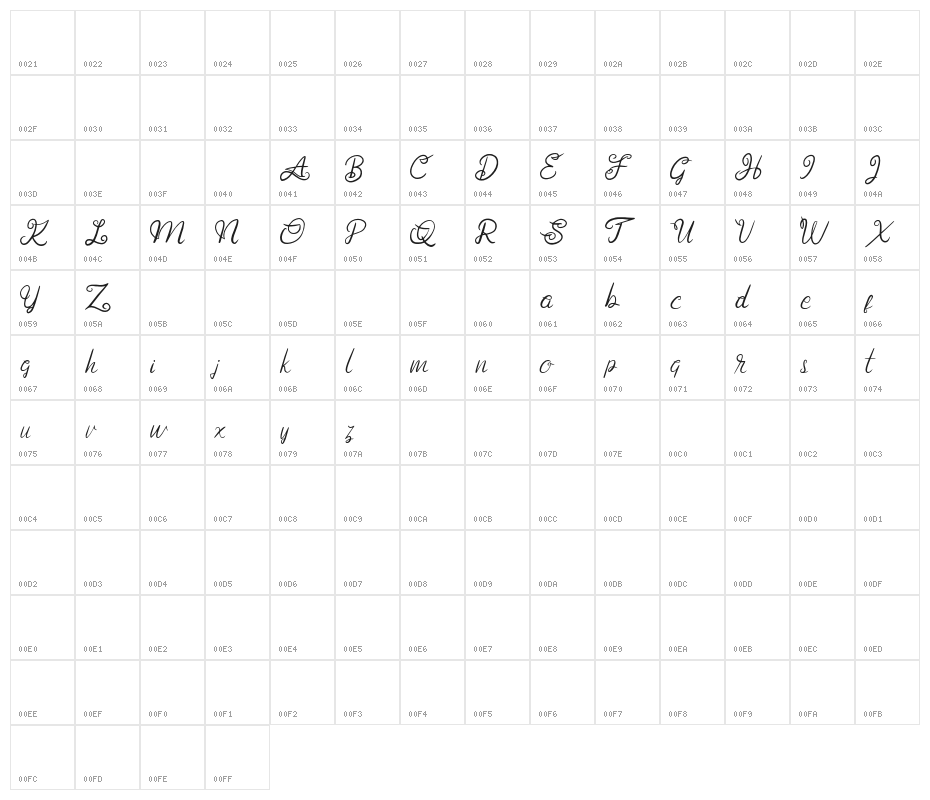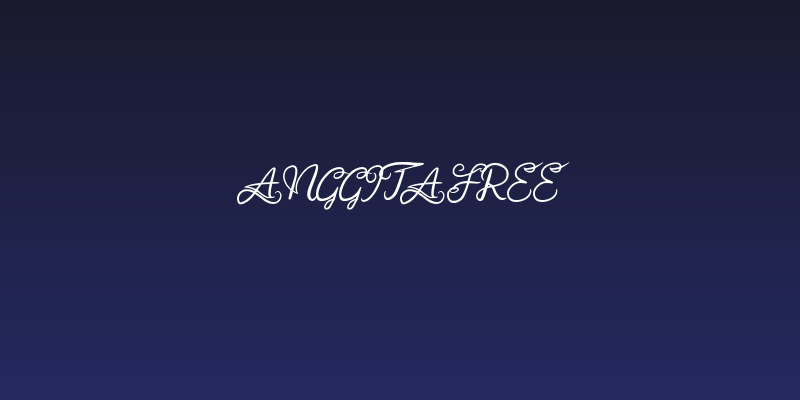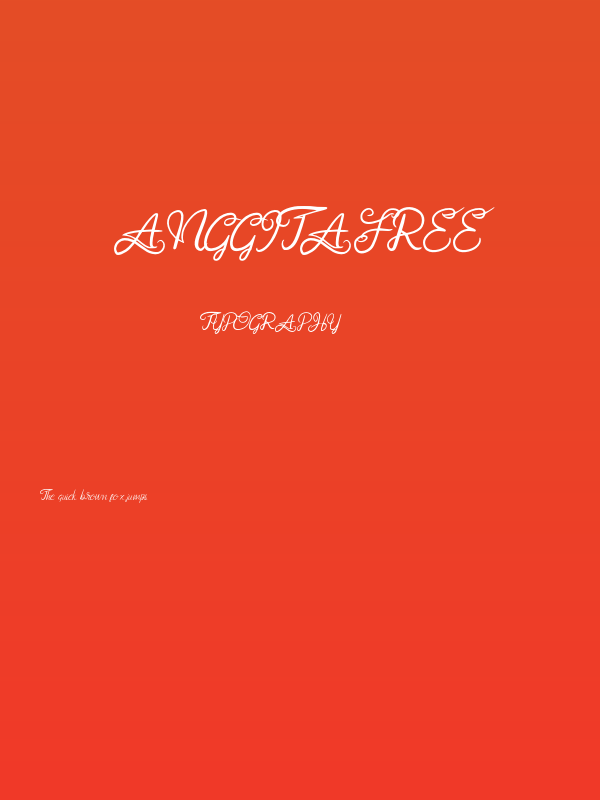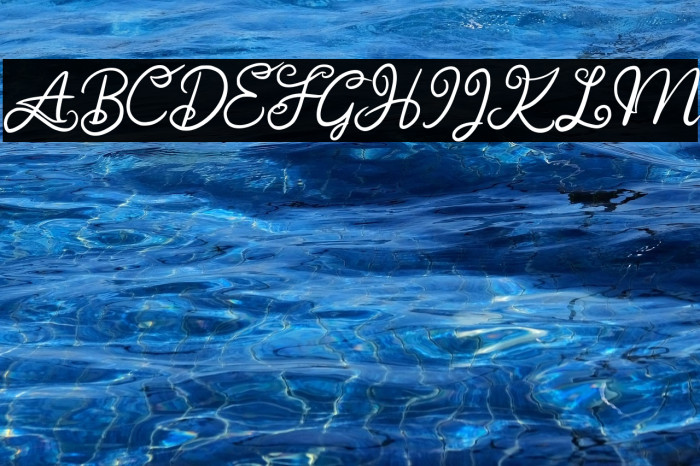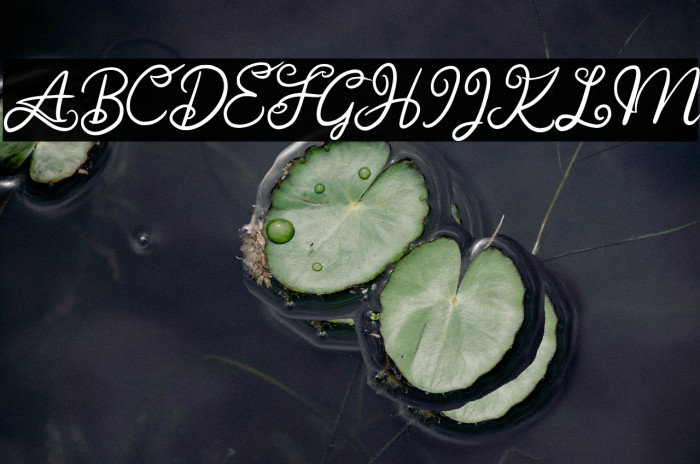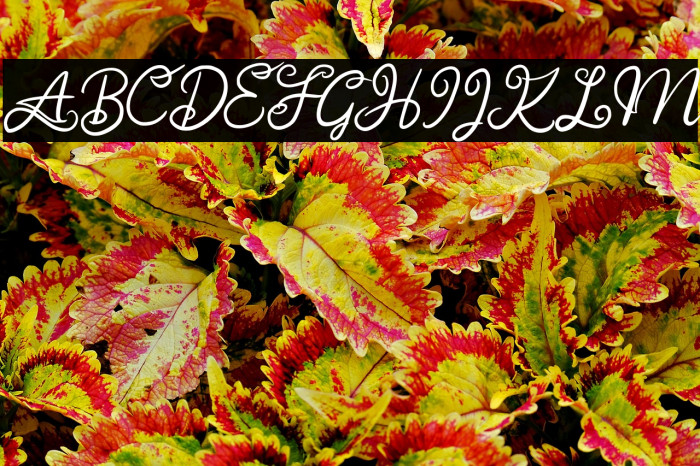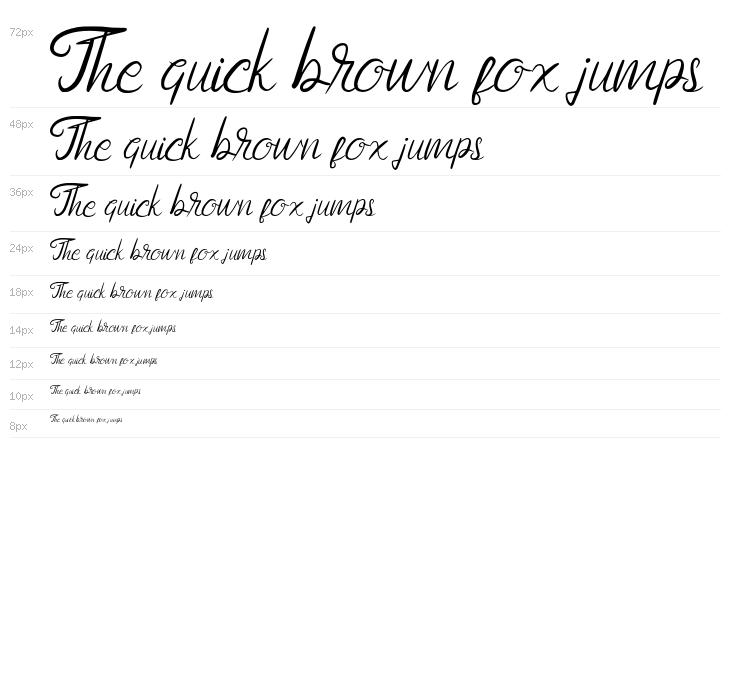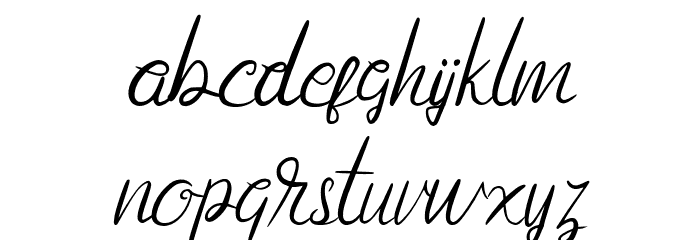
AnggitaFREE Font
AnggitaFREE Description
This elegant script font features a flowing, cursive style with intricate loops and swashes that give it a sophisticated and artistic appearance. The uppercase letters are particularly ornate, with elaborate flourishes that add a touch of grandeur. The lowercase letters maintain a consistent style, with smooth connections between characters, enhancing readability while preserving the decorative nature. The font's overall design is reminiscent of traditional calligraphy, making it suitable for projects that require a touch of elegance and refinement.
| Use Case | Headlines, Invitations, Branding |
| Proposed Projects | Ideal for wedding invitations, elegant branding, greeting cards, and decorative headlines. |